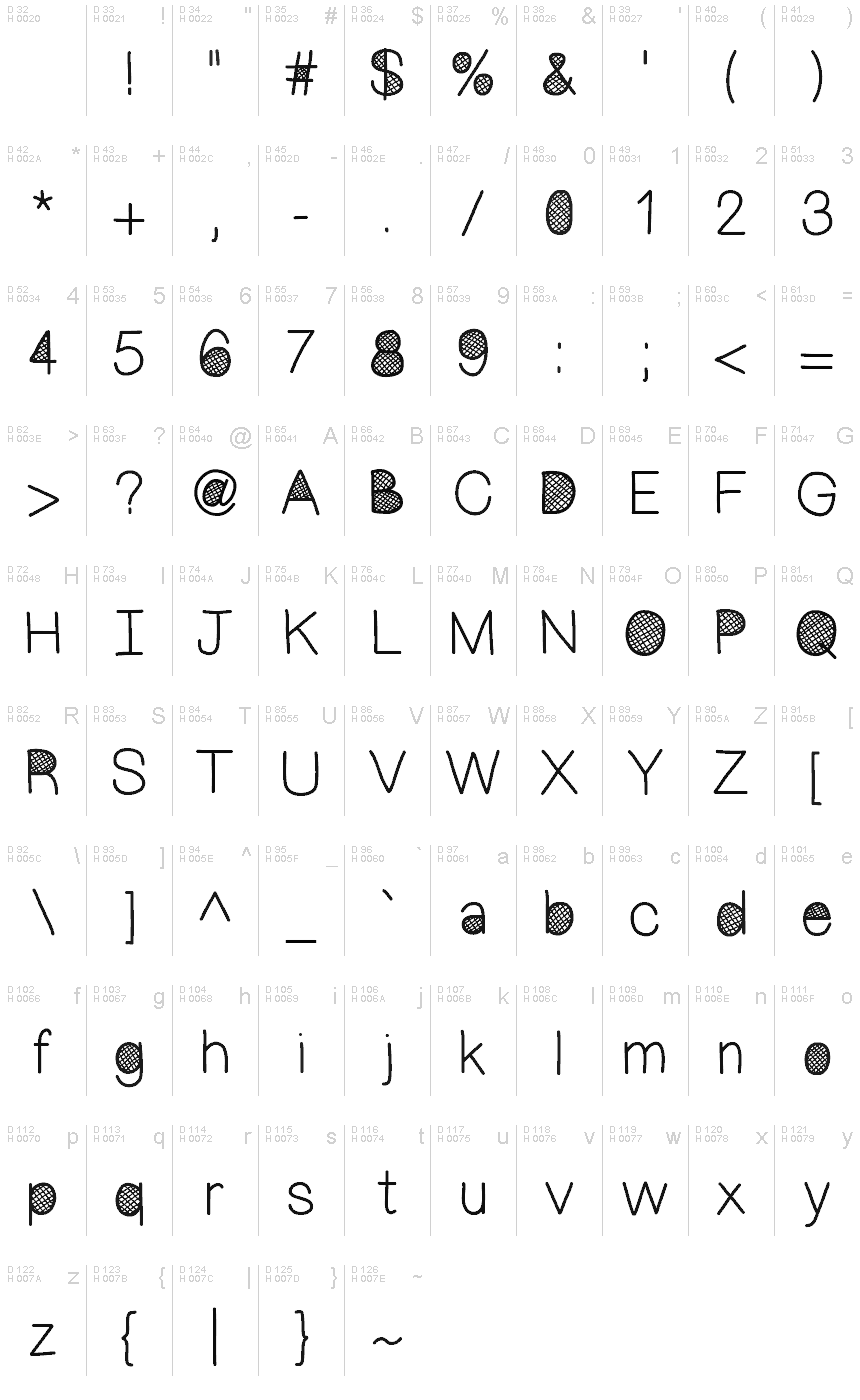
MixCrosshatch
Mix Crosshatch is a striking display font that commands attention with its bold, crosshatched design. Evoking a rugged, industrial aesthetic, this unique typeface exudes a sense of raw, uncompromising power. The intersecting lines and angular forms create a dynamic, textural quality that adds depth and visual interest to any design.
With its versatile personality, Mix Crosshatch lends itself well to a variety of applications, from eye-catching headlines and logo designs to impactful packaging and branding. Its distinctive character makes it an excellent choice for projects that require a bold, attention-grabbing typographic element, whether in print or digital mediums.